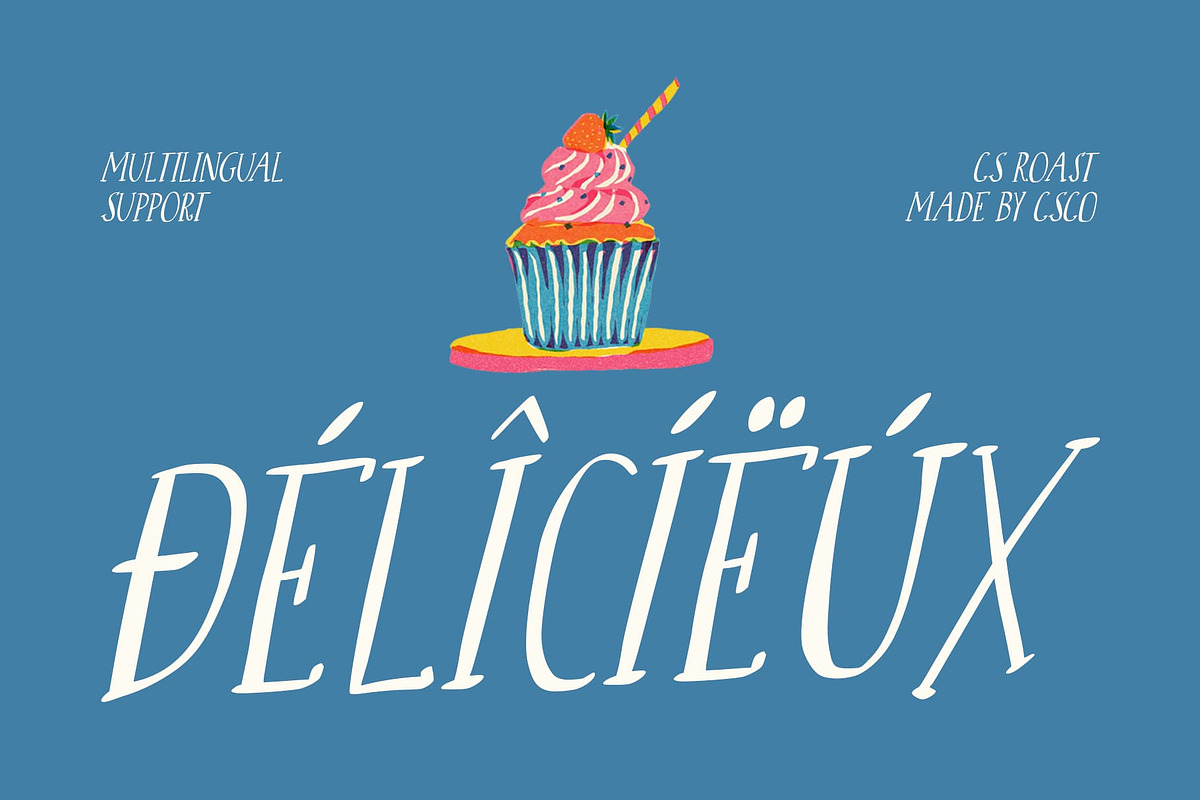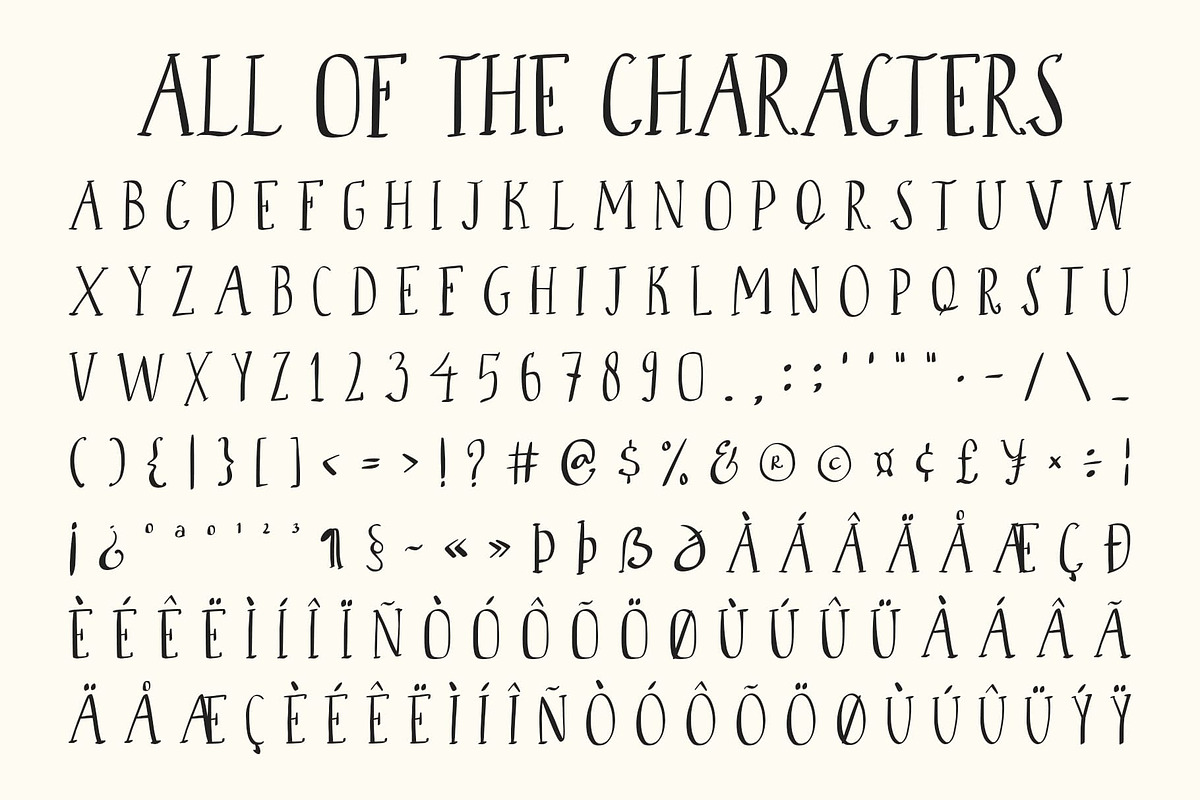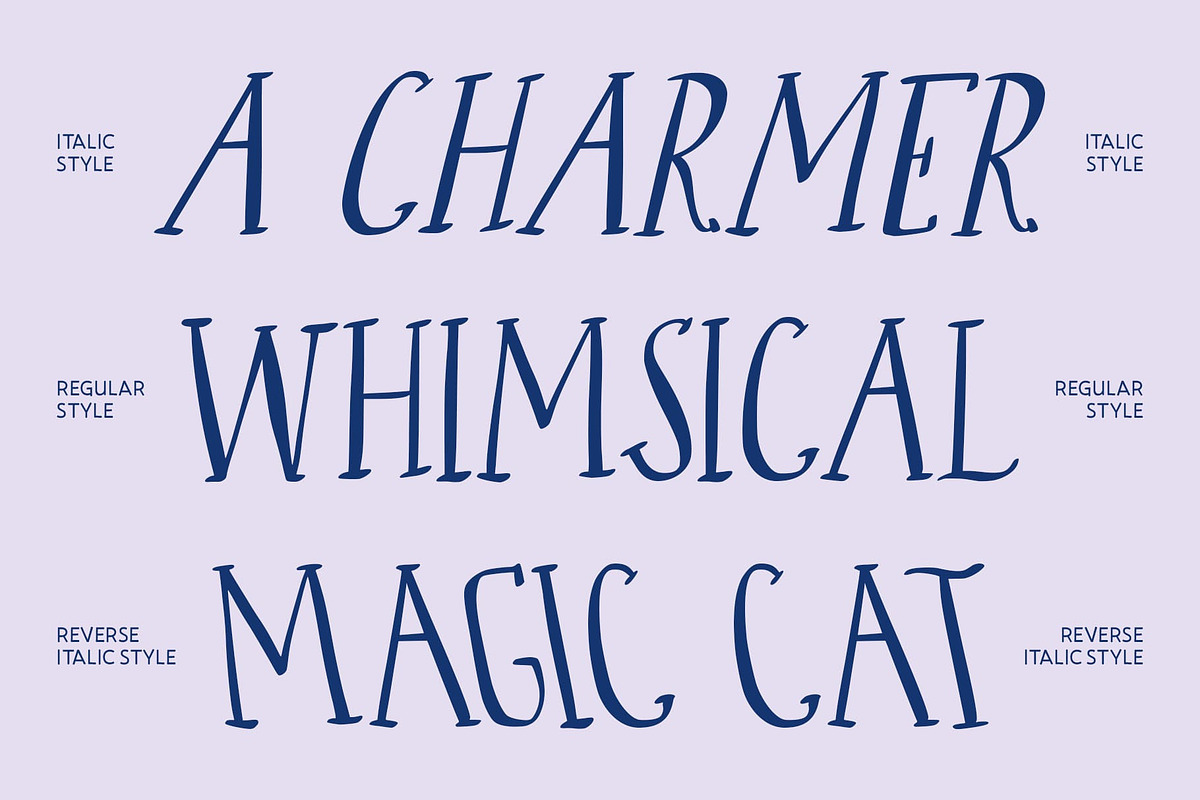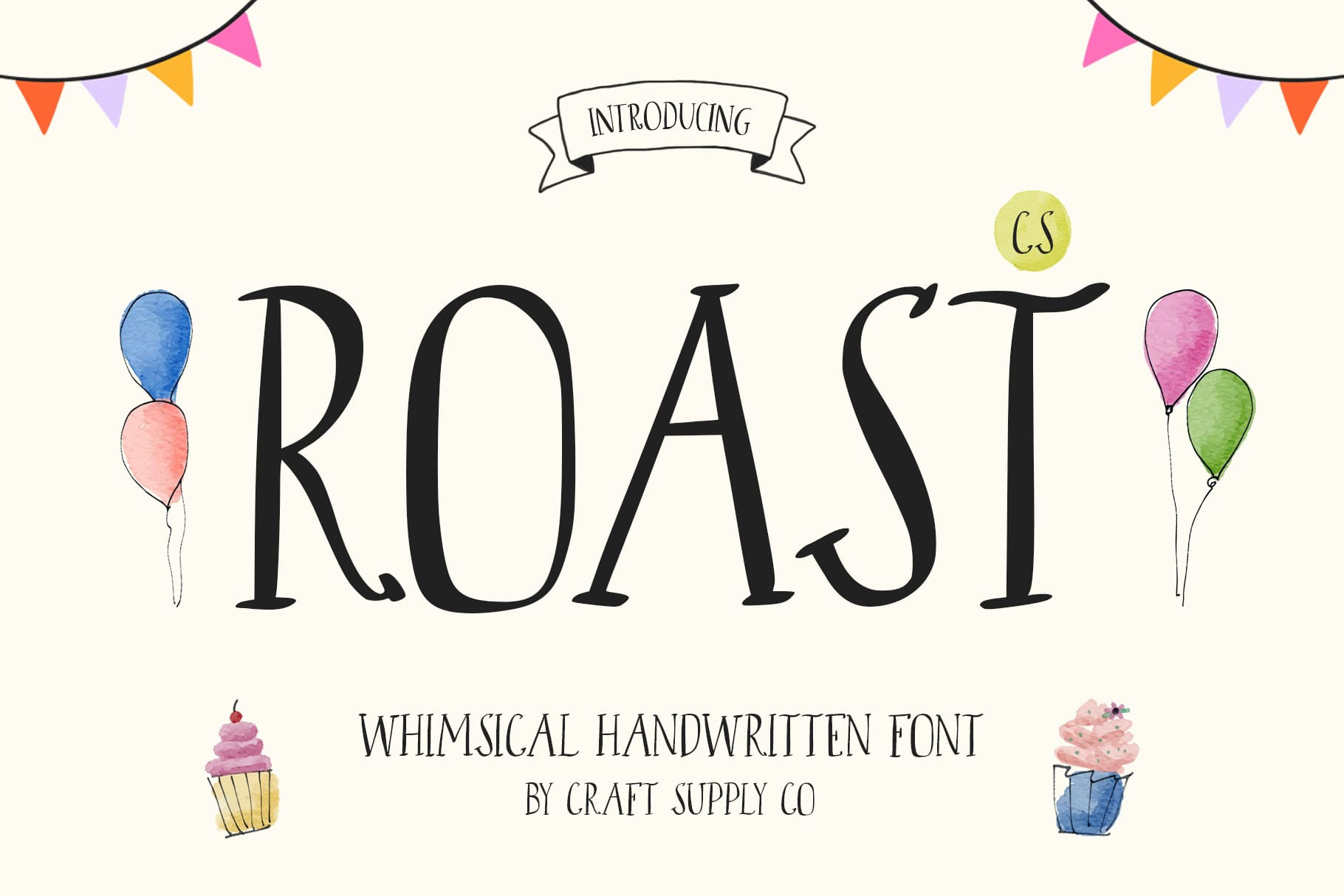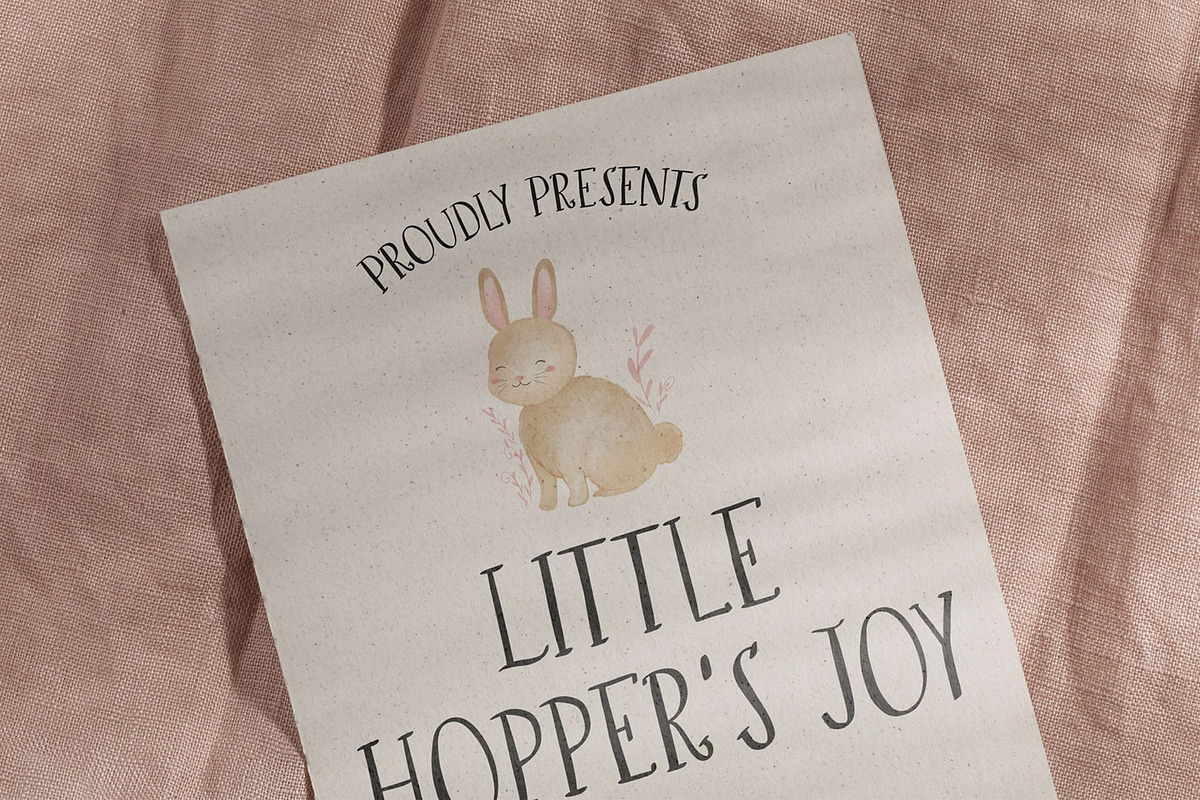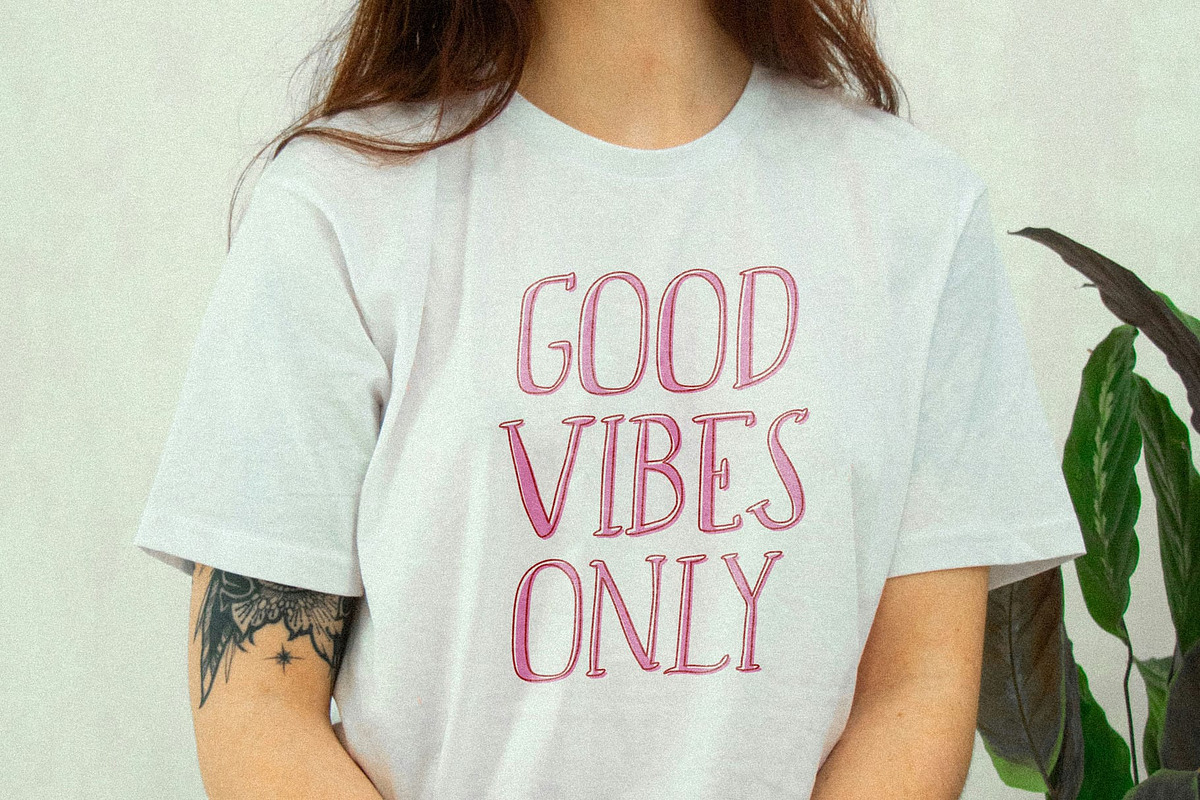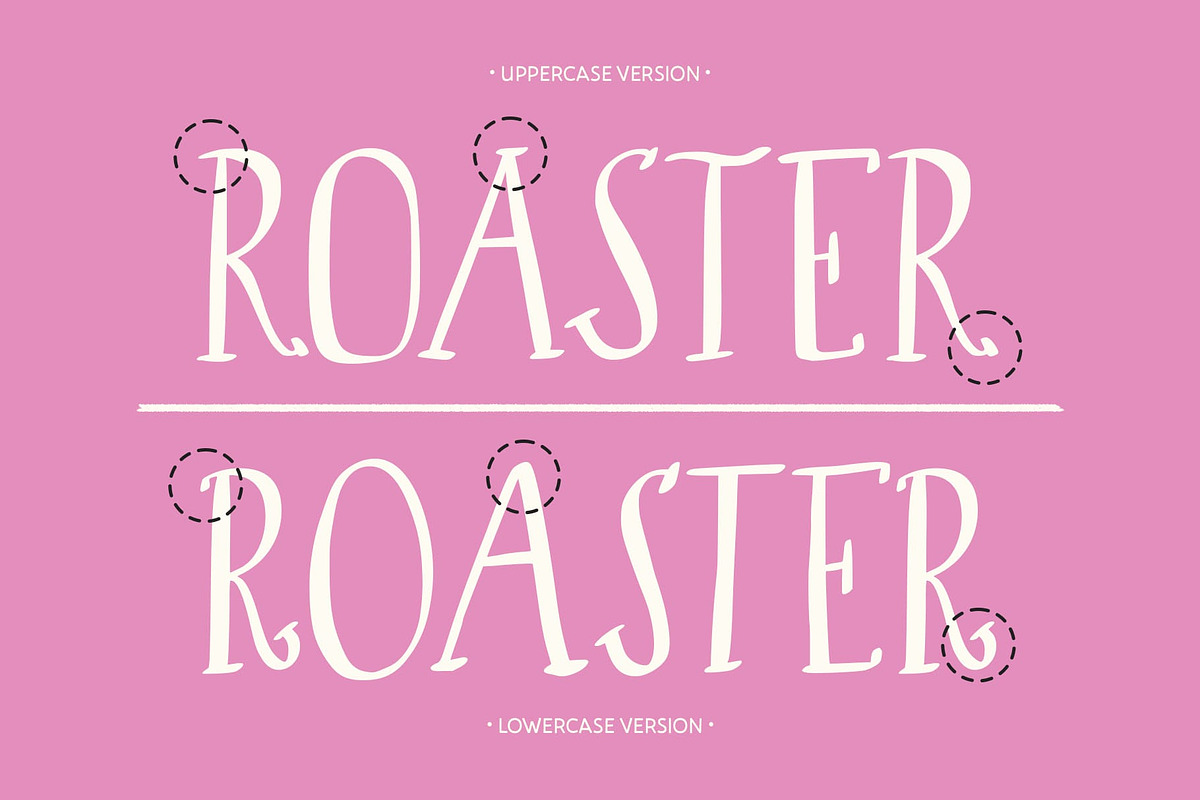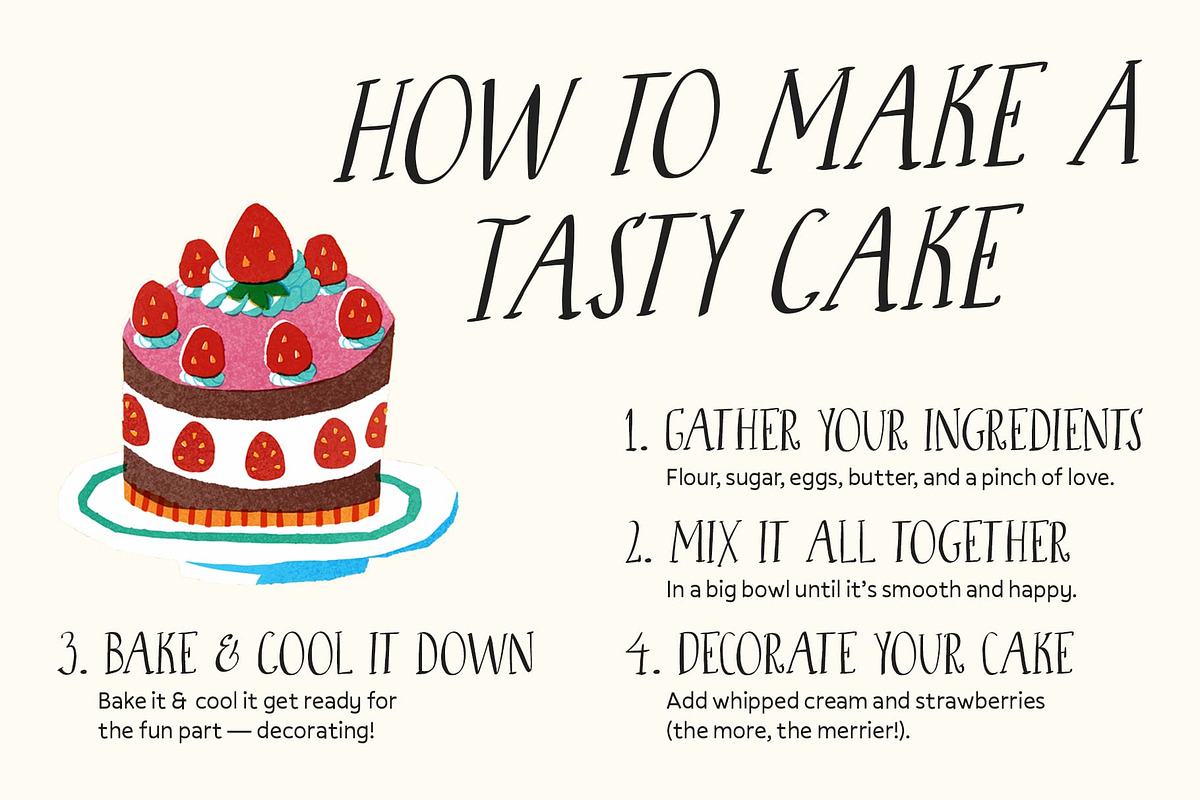
CS Roast – Whimsy Handwritten Font
Whimsical Handwritten Font for Storytelling Designs This is a storybook handwritten font that captures the magic of imagination and creativity. Inspired by the charm of hand-drawn lettering and classic fairytale aesthetics, this font blends curved serif forms with playful decorative details, creating a truly enchanting appearance.
Curved Serif Forms with a Touch of Magic The defining feature of this font lies in its soft, curved serifs and lively rhythm. These elements combine to give each character a handcrafted warmth and friendly appeal. The subtle ornamental touches make the font visually rich without overwhelming your design, maintaining a perfect balance between readability and personality.
Perfect for Playful and Creative Designs Designed for versatility, this font shines in children’s book covers, fantasy posters, playful branding, and creative packaging. Its whimsical flow adds charm to headlines and titles, while its handmade aesthetic enhances any design that aims to evoke joy, curiosity, and storytelling magic.
A Font That Inspires Imagination This font isn’t just a typeface it’s a creative tool for dreamers and storytellers. Whether you’re designing for young audiences, crafting imaginative logos, or building a fantasy-themed brand, adds that special spark of wonder. Let your designs tell their own story with a handwritten font full of warmth, charm, and fantasy spirit.
- CS Roast Regular
- CS Roast Italic
- CS Roast Reverse Italic